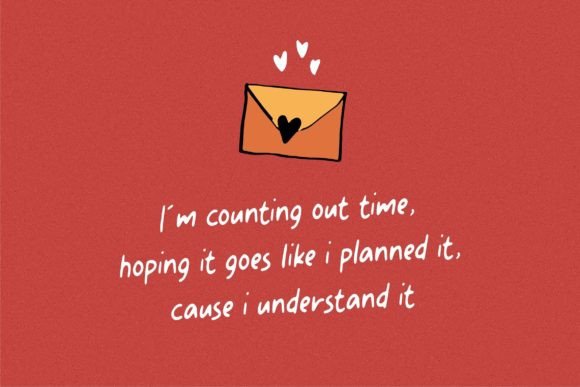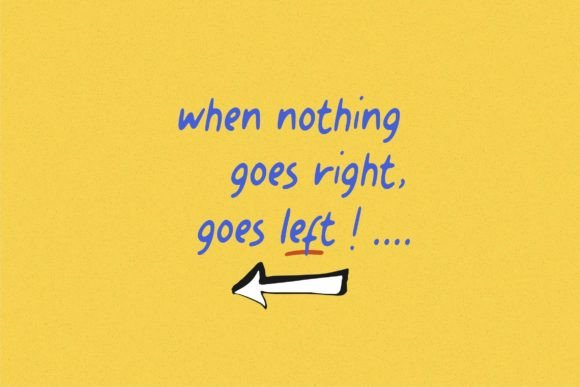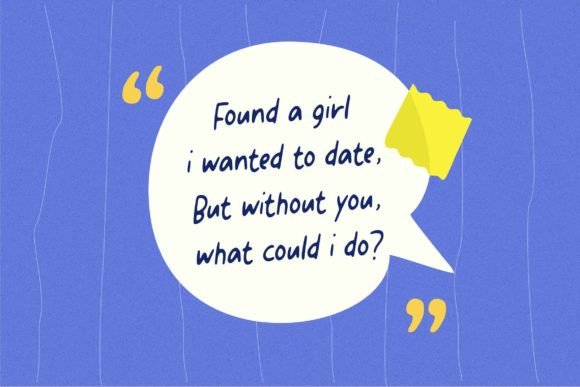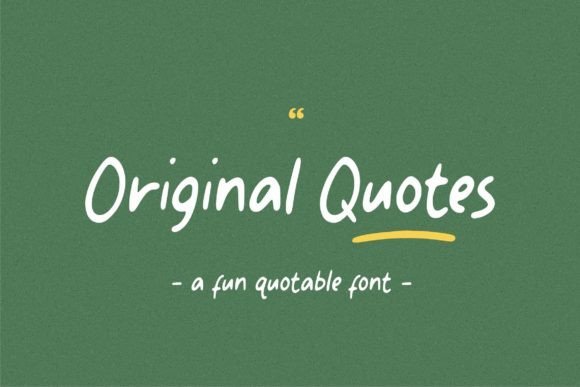
Introduction to Original Quotes Font
Original Quotes is a fun and casual handwritten font.
Its playful and versatile style is perfect for a wide pool of creative ideas .
Why Choose Original Quotes Font?
Original Quotes Font offers exceptional quality and versatility, making it a valuable addition to your design toolkit. Whether you’re creating for personal projects or commercial use, Original Quotes Font delivers professional results.